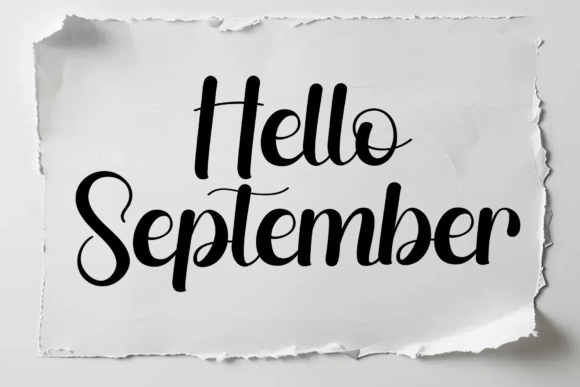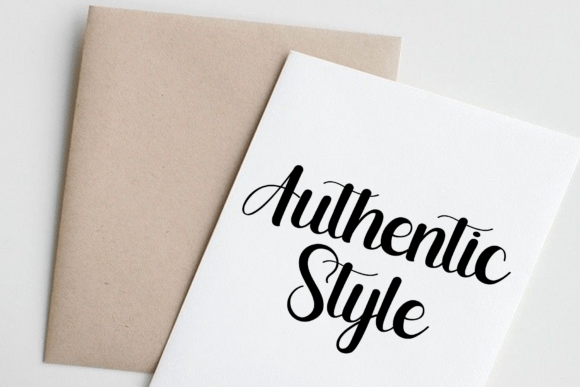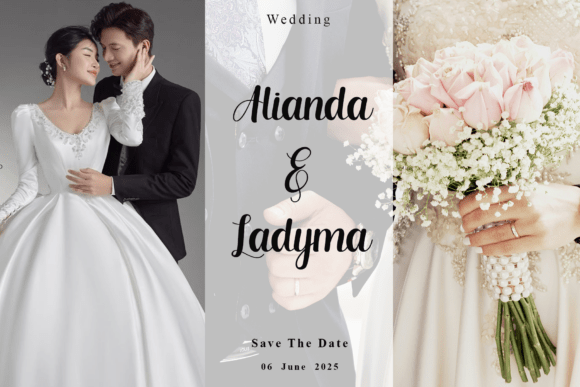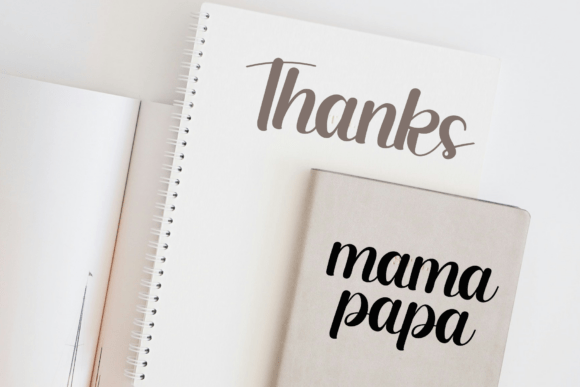
Diligents Font: Elevate Your Designs with Elegance and Sophistication
In the world of typography, fonts play a crucial role in conveying the tone and personality of a design. For those seeking a script font that exudes charm and sophistication, Diligents Font is an exceptional choice. This beautifully flowing script font is designed to add a touch of elegance to various design projects, from wedding invitations to personal branding, packaging, and romantic quotes.
The Characteristics of Diligents Font
Diligents Font boasts smooth curves and a handwritten feel, making it perfect for designs that require a personal and intimate touch. Its flowing script style is characterized by:
- Smooth Curves: Diligents Font features smooth, flowing curves that give it a luxurious and refined appearance.
- Handwritten Feel: The font’s handwritten feel adds a personal touch, making it ideal for designs that require a human and approachable tone.
- Elegant Lines: The font’s lines are carefully crafted to create a sense of elegance and sophistication, perfect for high-end designs.
Use Cases for Diligents Font
Diligents Font is a versatile typeface that can be used in various design projects, including:
- Wedding Invitations: Add a touch of romance and sophistication to your wedding invitations with Diligents Font.
- Personal Branding: Use Diligents Font to create a luxurious and refined brand identity that reflects your personal style.
- Elegant Packaging: Elevate your packaging designs with Diligents Font, perfect for high-end product packaging.
- Romantic Quotes: Use Diligents Font to add a touch of elegance and romance to your quotes, perfect for social media posts, posters, or prints.
Why Choose Diligents Font?
With so many fonts available, why choose Diligents Font? Here are a few reasons:
- Unique Style: Diligents Font offers a unique and distinctive style that sets it apart from other script fonts.
- High-Quality Design: The font is carefully crafted to ensure high-quality design, with attention to detail and precision.
- Easy to Read: Despite its elegant and cursive style, Diligents Font is easy to read, making it perfect for body text and headlines.
- Versatile: Diligents Font can be used in various design projects, from digital designs to print materials.
Tips for Using Diligents Font
To get the most out of Diligents Font, here are some tips:
- Pair with Simple Fonts: Pair Diligents Font with simple fonts to create a beautiful contrast and add visual interest to your design.
- Use for Headlines and Titles: Use Diligents Font for headlines and titles to add a touch of elegance and sophistication.
- Experiment with Colors: Experiment with different colors to find the perfect match for your design, from metallic colors to pastels.
- Pay Attention to Spacing: Pay attention to spacing and kerning to ensure your text is easy to read and visually appealing.
Diligents Font is a beautifully flowing script font that radiates charm and sophistication. With its smooth curves, handwritten feel, and elegant lines, it’s perfect for designers and crafters seeking to add a touch of luxury to their designs. Whether you’re creating wedding invitations, personal branding, elegant packaging, or romantic quotes, Diligents Font is an exceptional choice. With its versatility, high-quality design, and ease of use, Diligents Font is sure to elevate your designs to the next level.